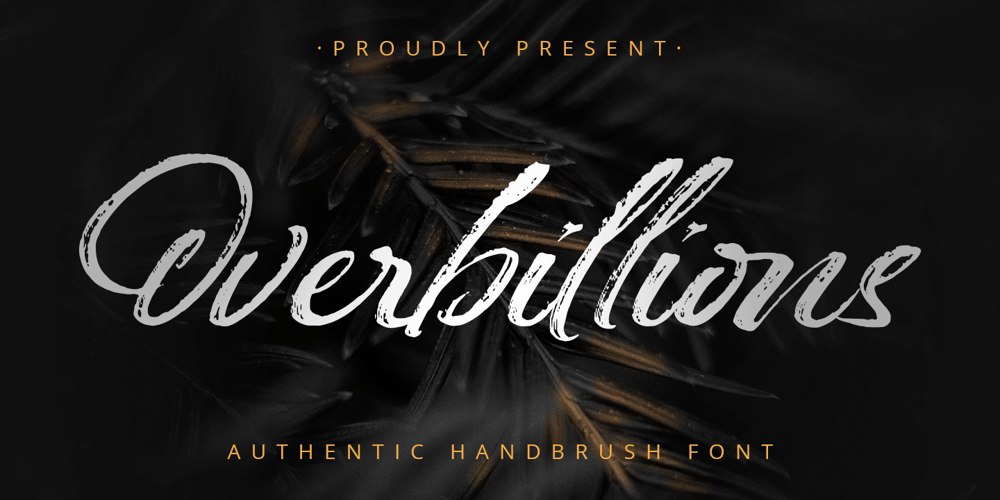
Overbillions Font Family was designed by Abdul Malik Wisnu and published by Almarkha Type. Overbillions contains 1 styles and family package options. Introducing Overbillion – Brush Script is a Authentic brush script that is written casually and quickly. Letters are made with brushes on paper. Then scanned and carefully drawn into vector format.That is why Overbillion has charming, authentic and relaxed characteristic more natural look to your text with a more natural look to your text. You can activate Ligature OpenType panel, Overbillion Perfect for designs,branding projects, Logo design, Quotes product packaging.